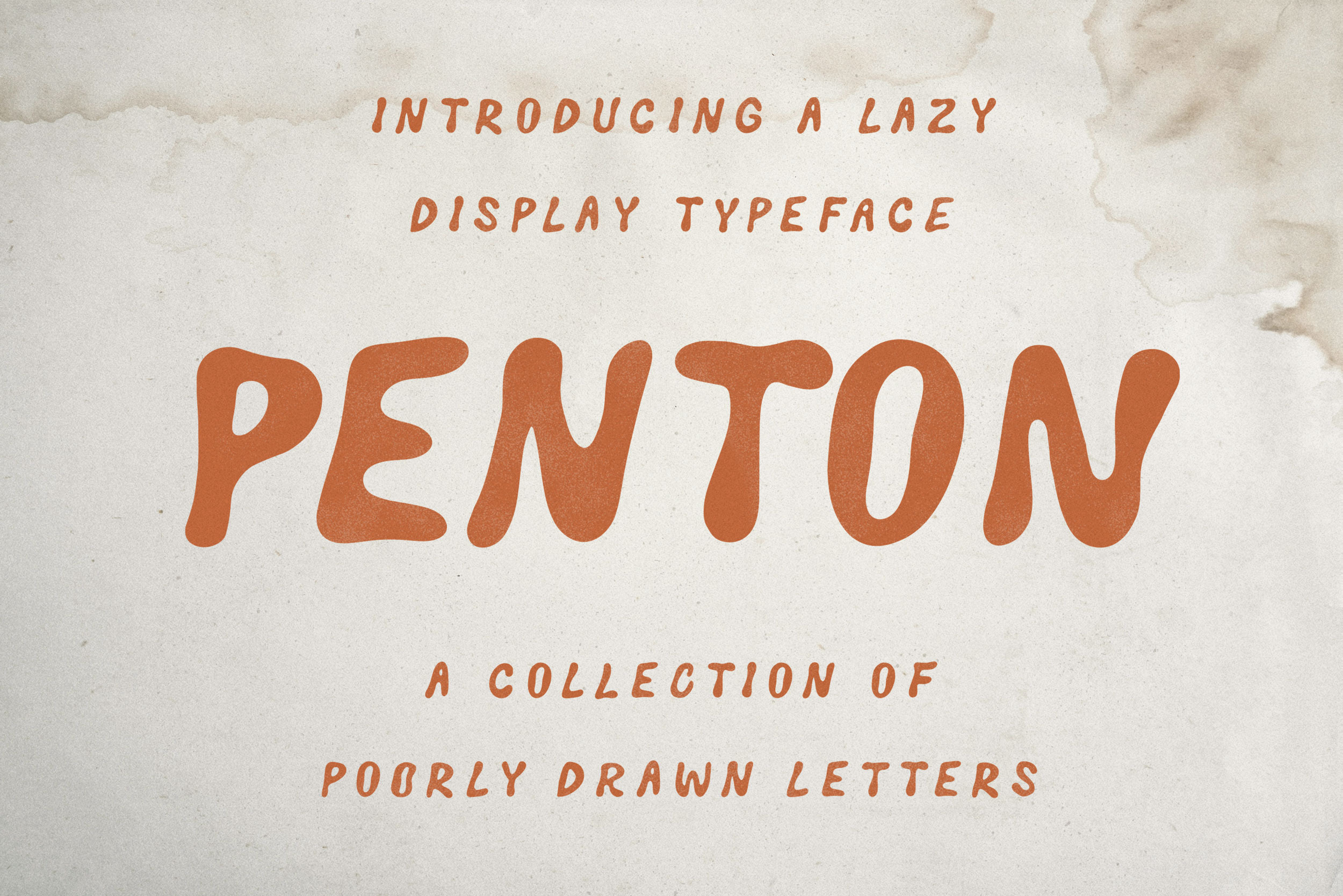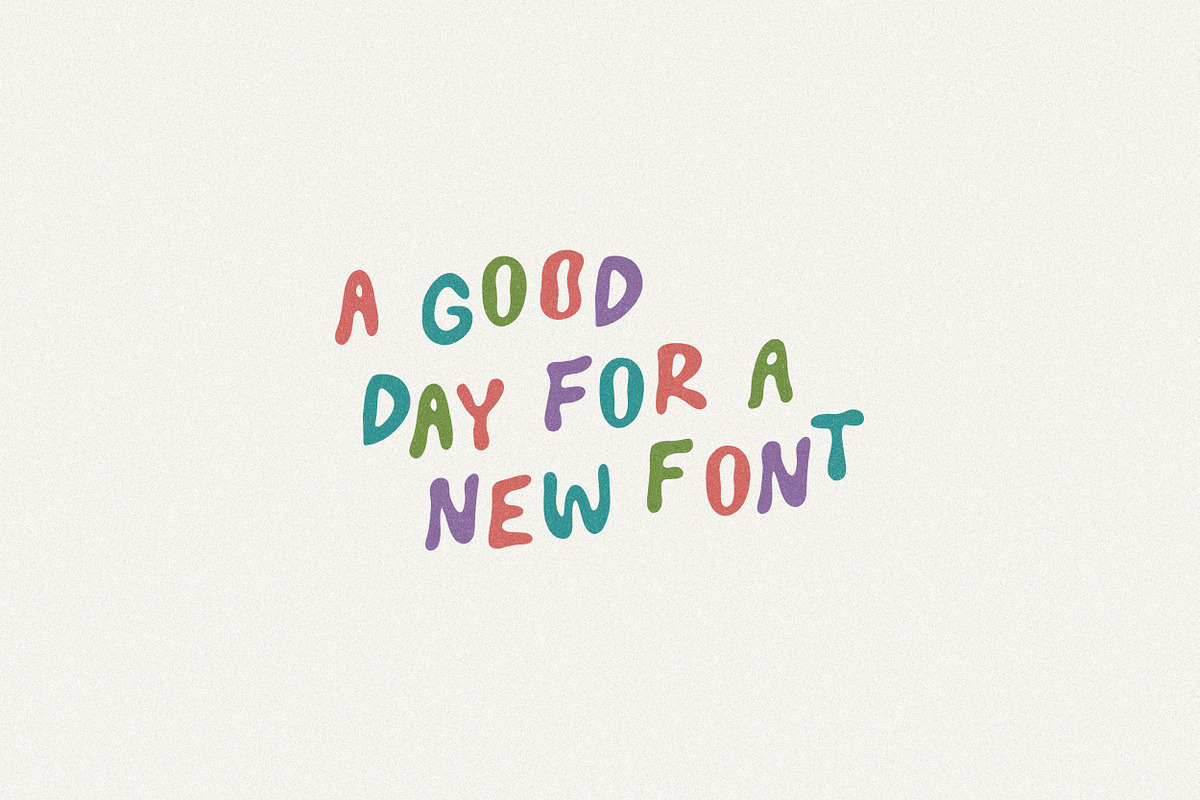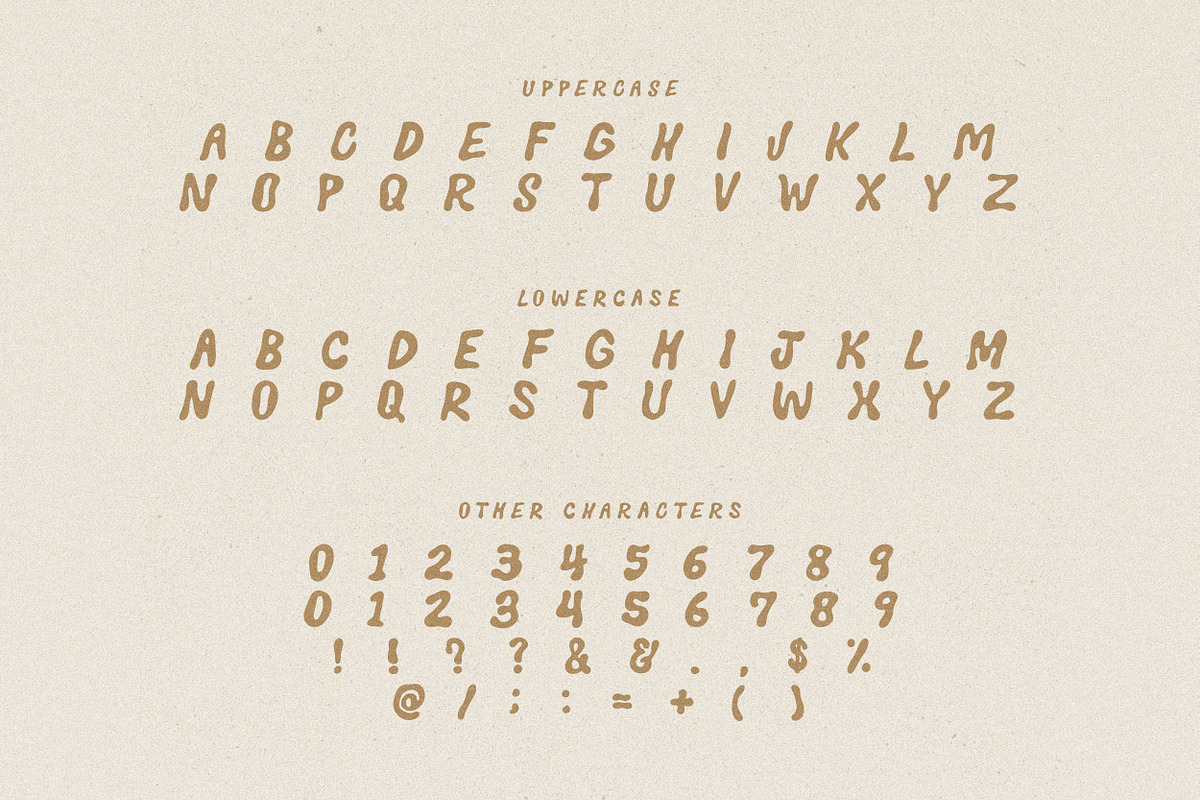
Penton | Lazy Handmade Font
Meet "Penton," a typeface that’s unapologetically lazy. It’s the kind of font that looks like it rolled out of bed at noon. Crafted with the kind of carefree spirit that can only come from not really trying too hard, Penton proves that sometimes the best things in life are gloriously misaligned and wonderfully unconventional.
Contains single-case A-Z, numbers 0-9 and basic punctuation.